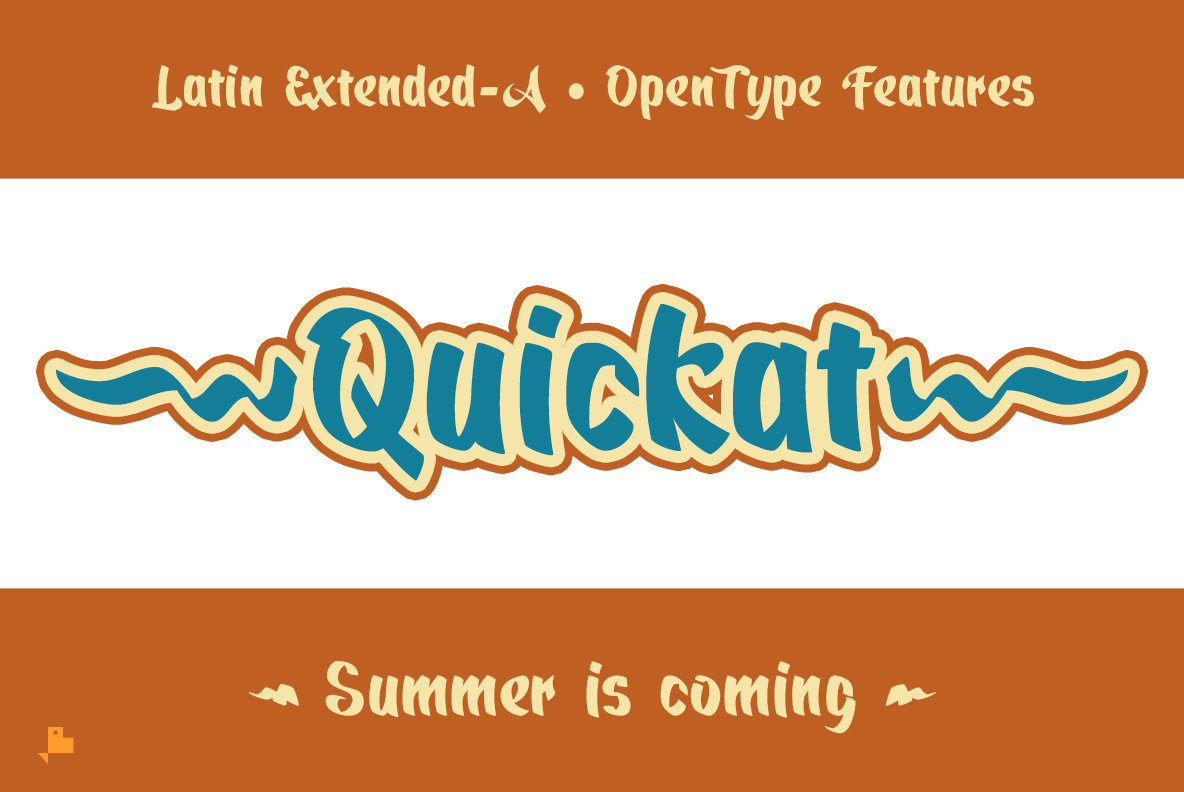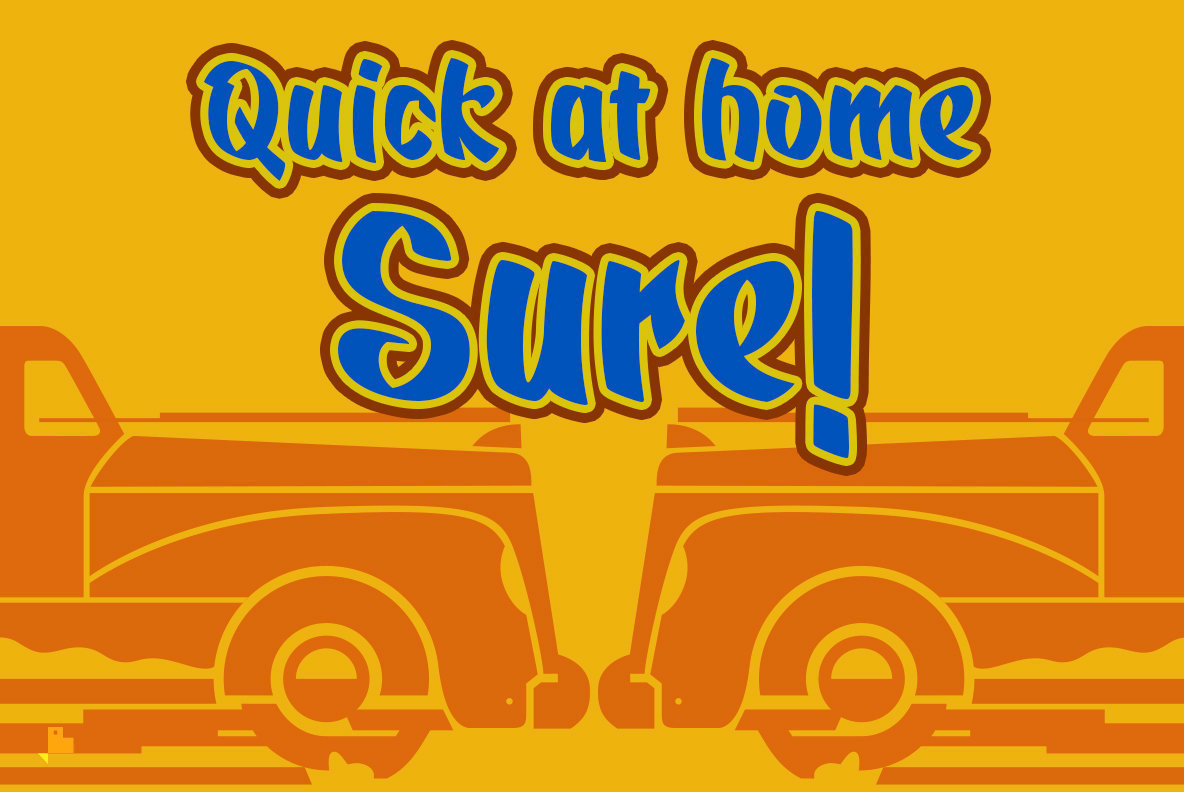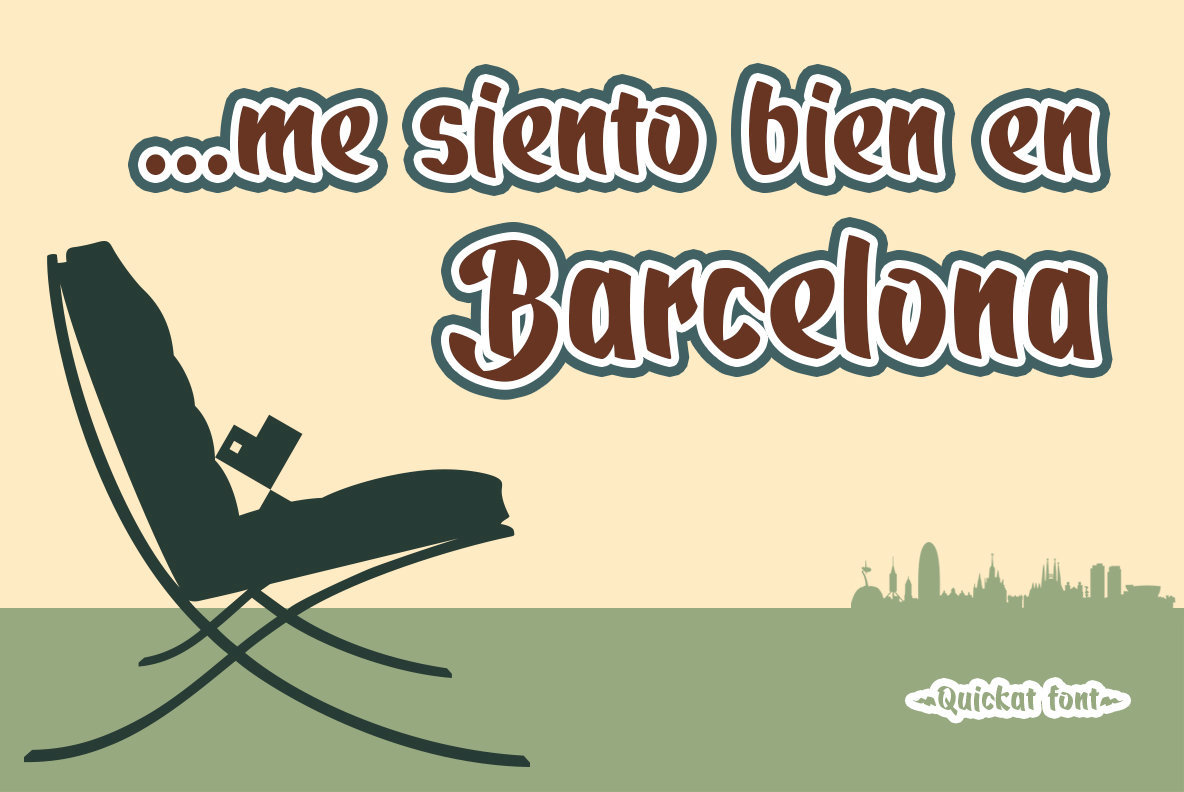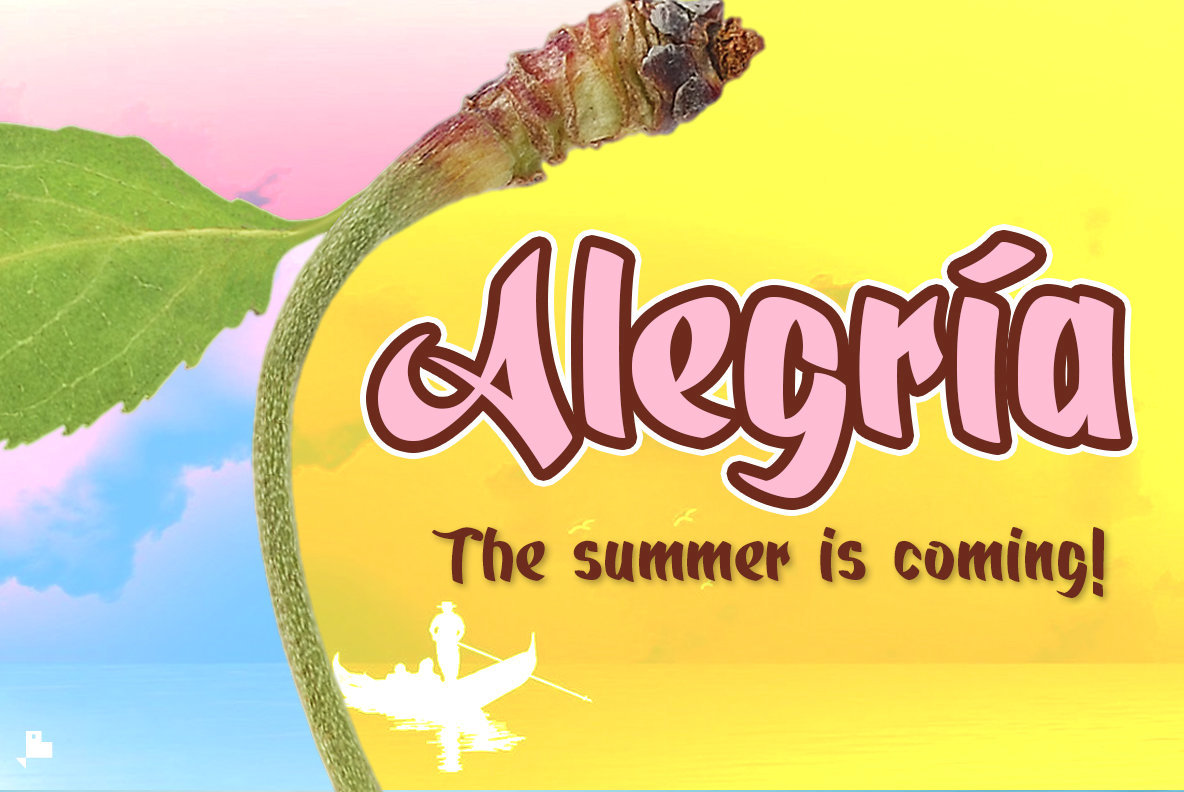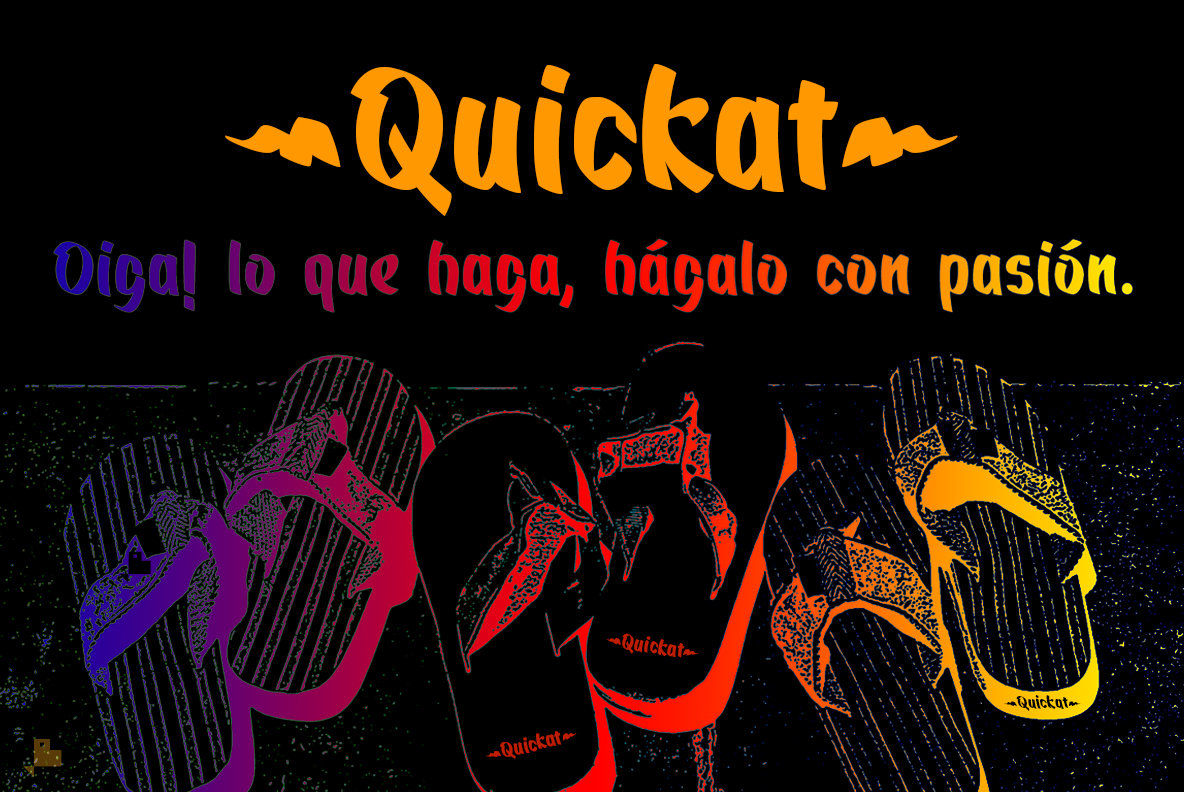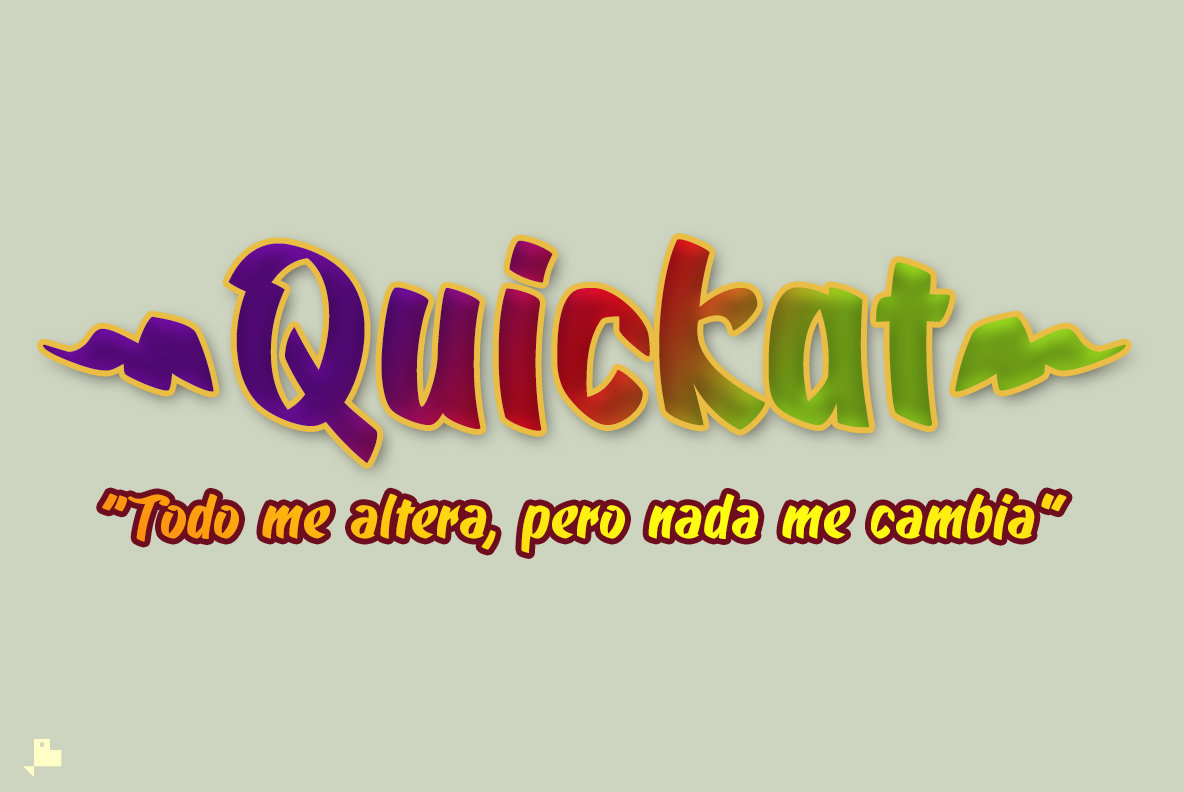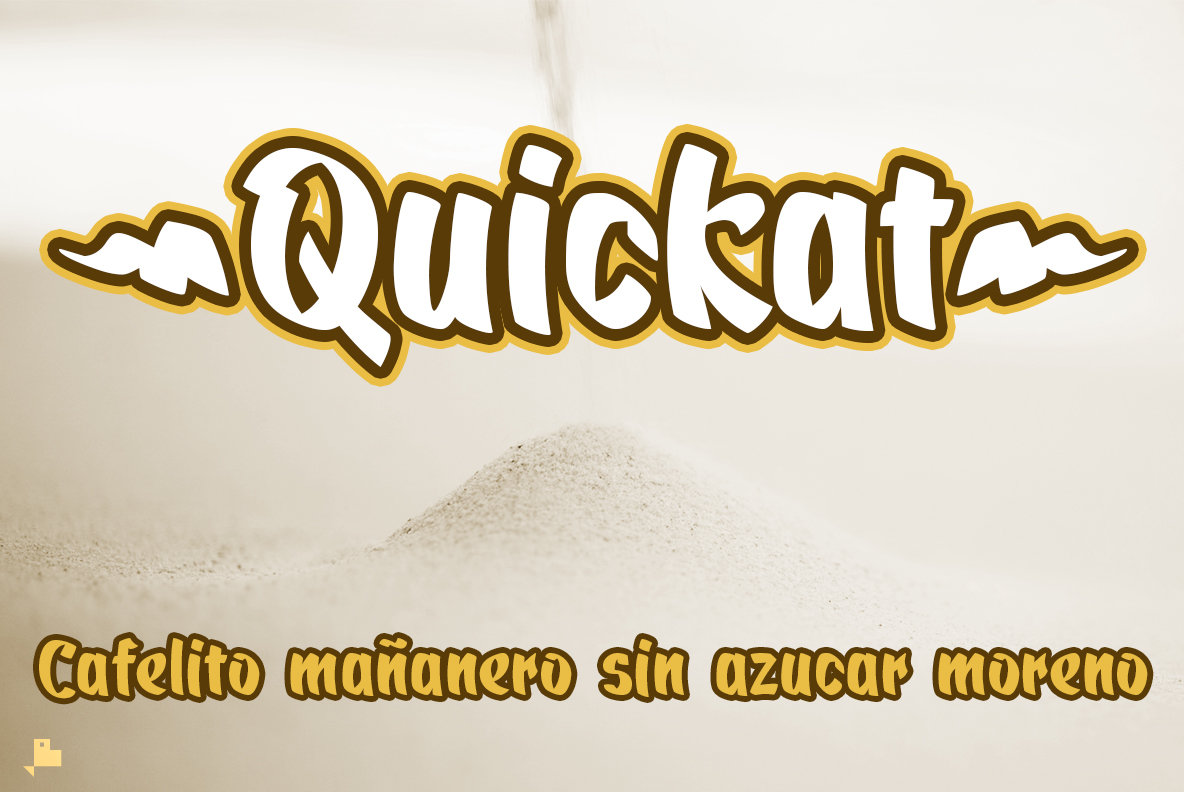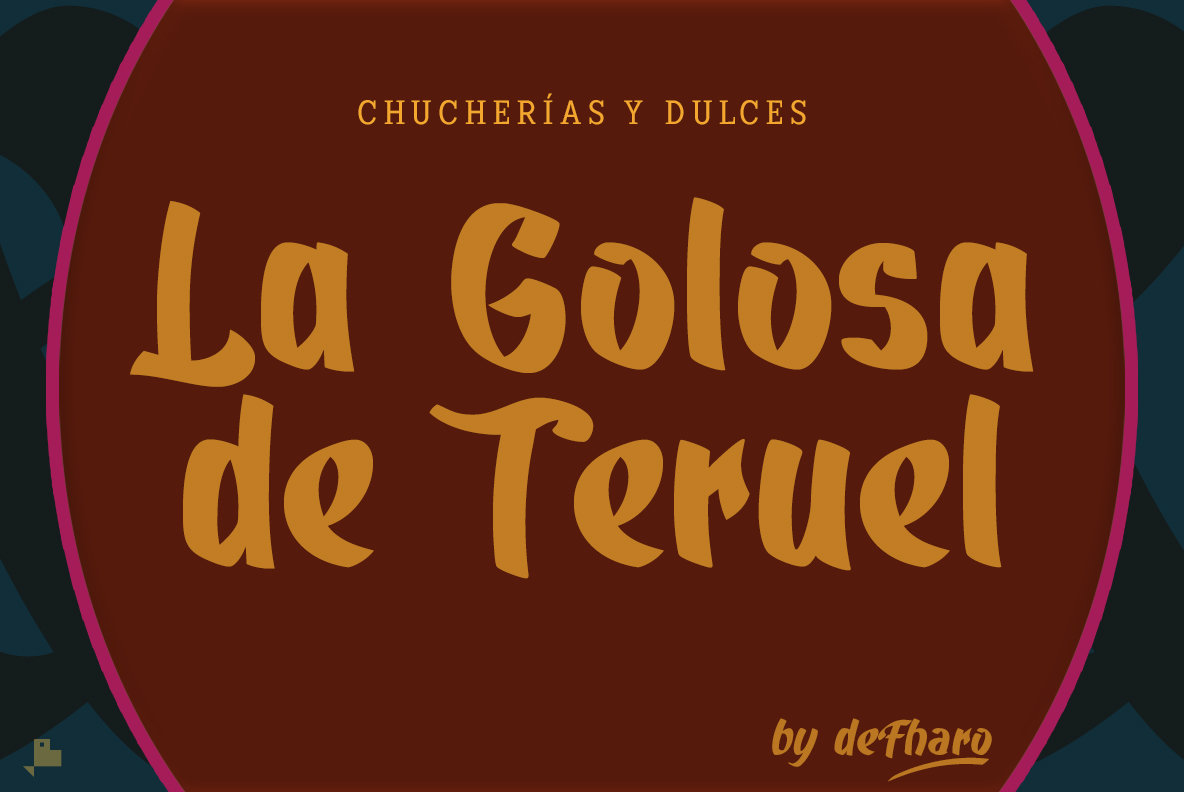
Quickat Font
Quickat
Quickat is a distinctive handwritten font that boasts a thick, condensed calligraphic style, complete with various terminal ornaments for enhancing the decoration of phrases and titles. Crafted meticulously by hand with a pen, Quickat adheres to precise proportions derived from the Perrin numbers. These principles are applied rigorously to the capital letter H, from which all other alphabetic proportions are calculated using perfected mathematical formulas. Quickat: A Versatile Handwritten Calligraphic Font
Quickat is an excellent option for designers who wish to infuse their work with the artistry and individuality of handwritten calligraphy.